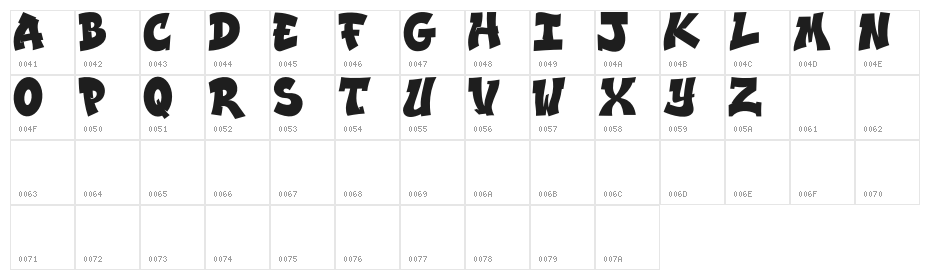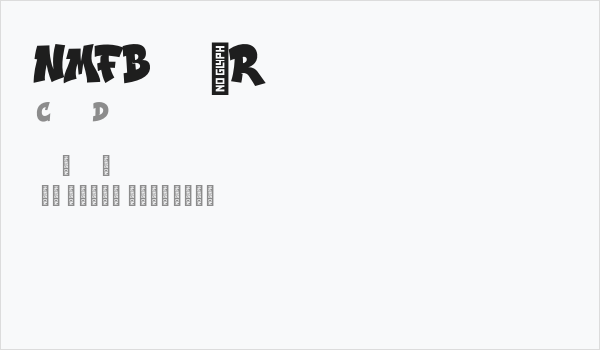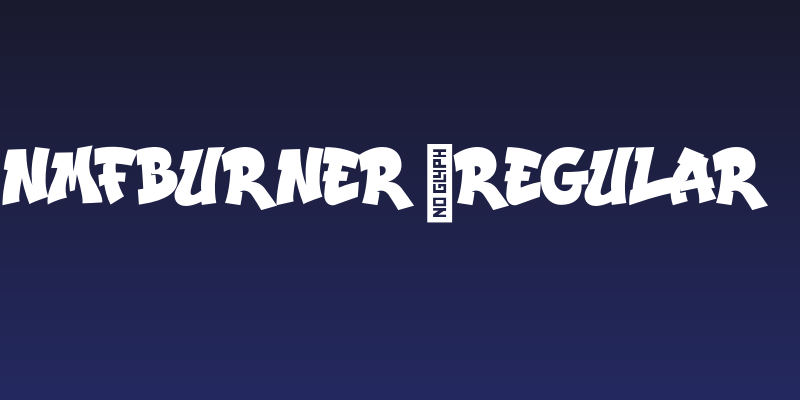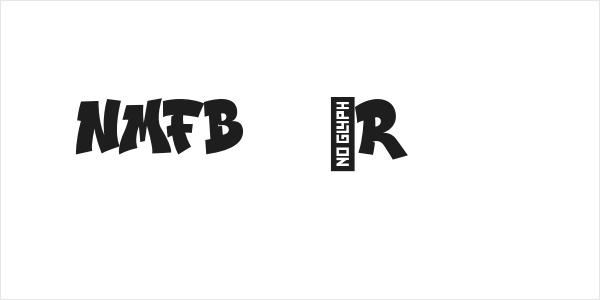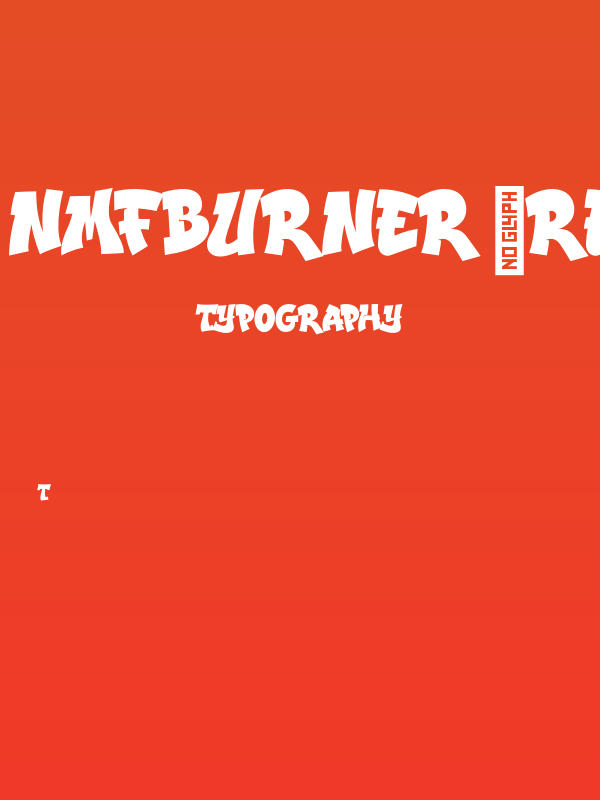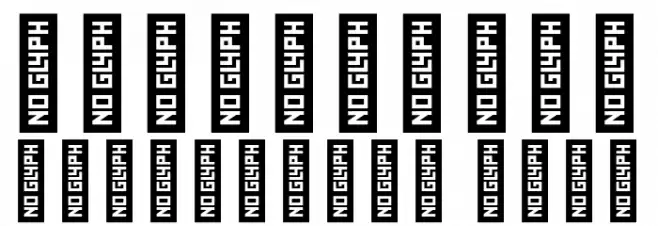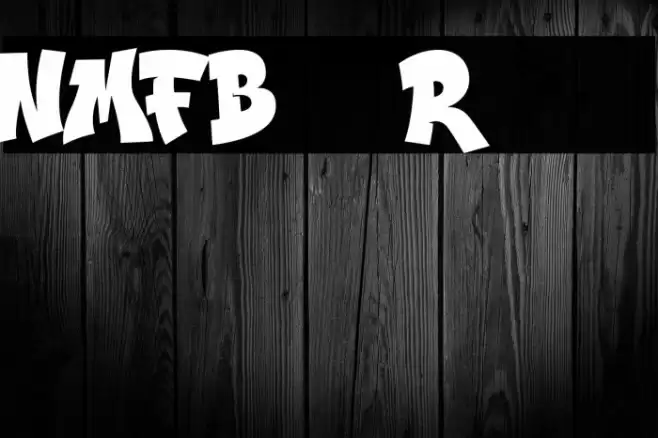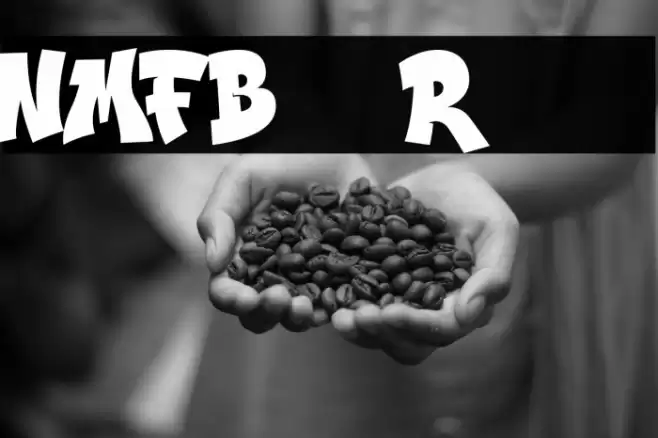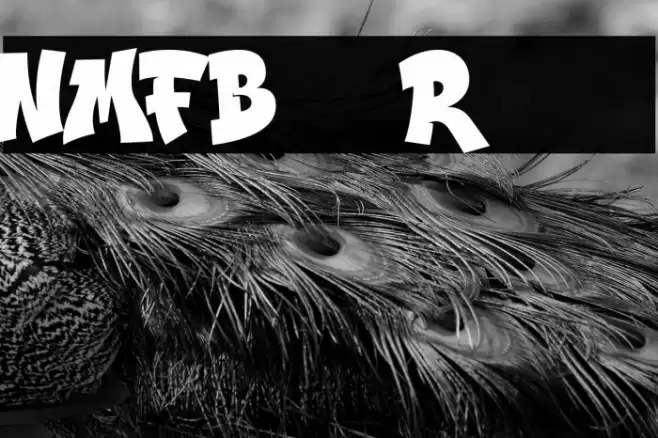
NMFBurner-Regular Font
NMFBurner-Regular Description
This font features bold, dynamic characters with a strong presence. The uppercase letters exhibit a playful yet robust style, characterized by thick strokes and sharp angles. The design conveys a sense of energy and movement, making it ideal for attention-grabbing headlines or titles. The absence of lowercase letters and numerals suggests a focus on impactful display use. The font's unique style is both modern and slightly edgy, suitable for creative projects that require a bold statement.
| Proposed Projects | Ideal for posters, logos, and headlines where a strong visual impact is needed. |